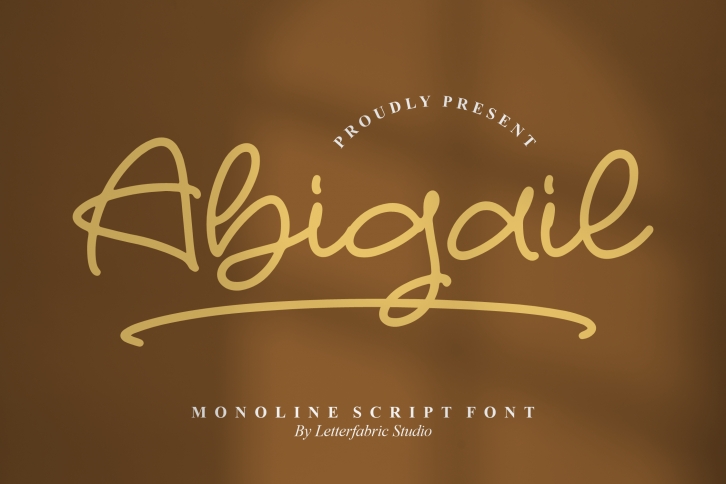
Abigail is a monoline, signature font with a stylish handwritten feel full of curves, swashes, lines, and more. The balance in every word is truly extraordinary!